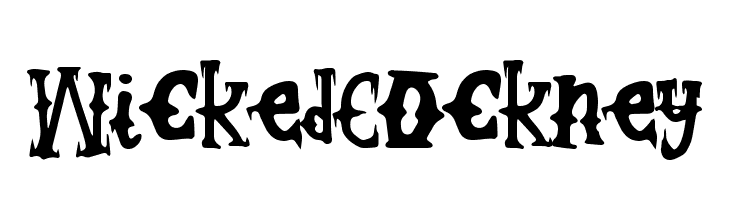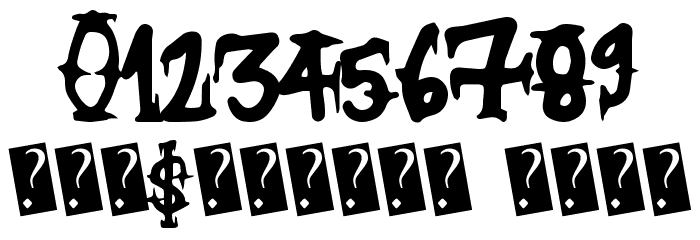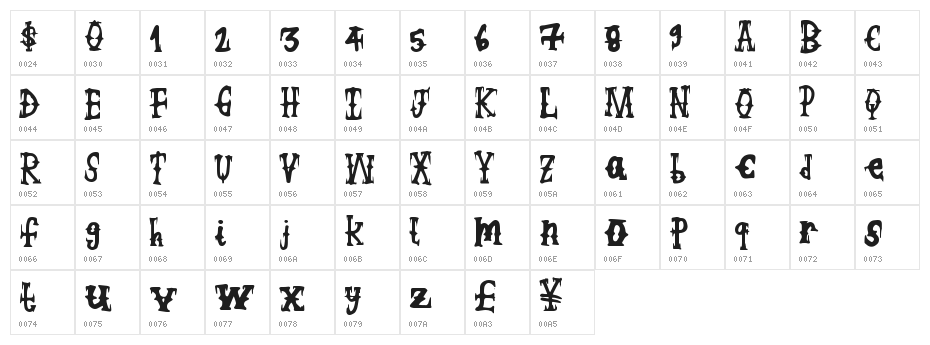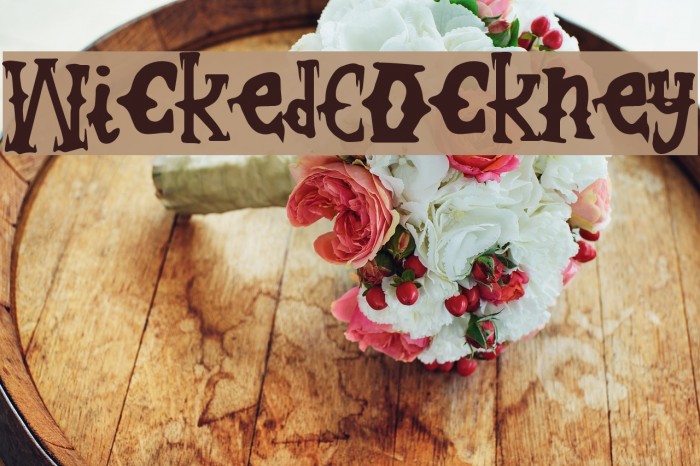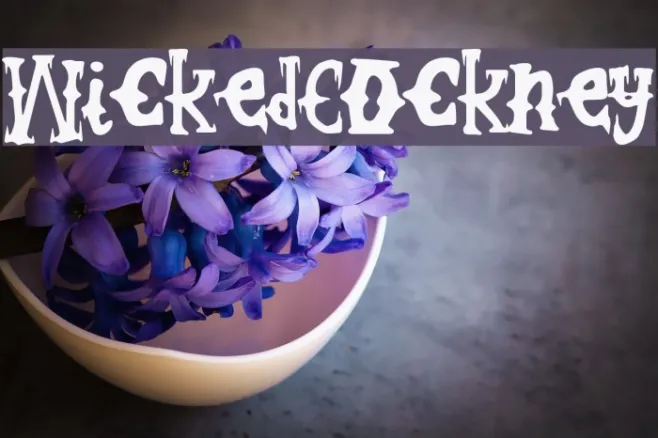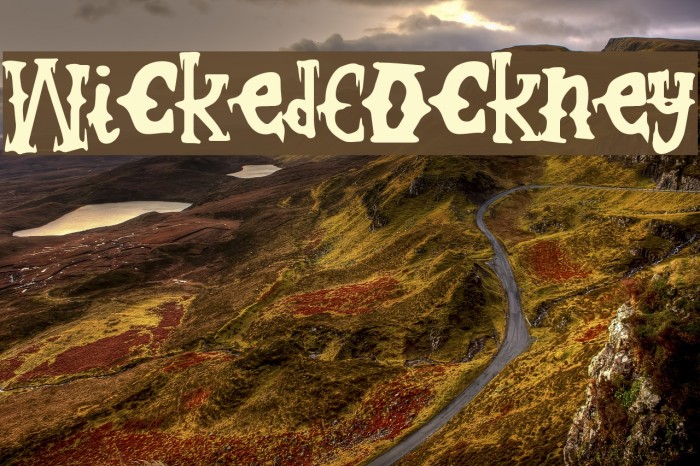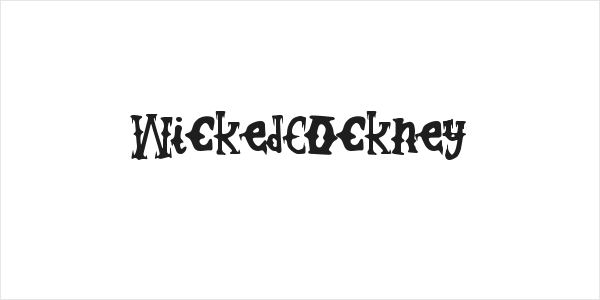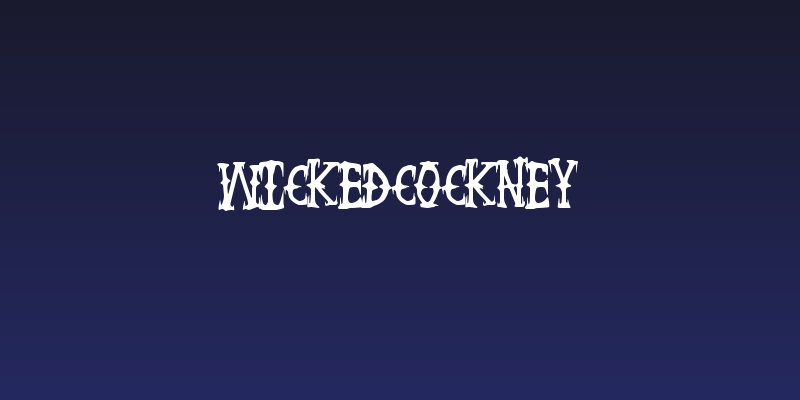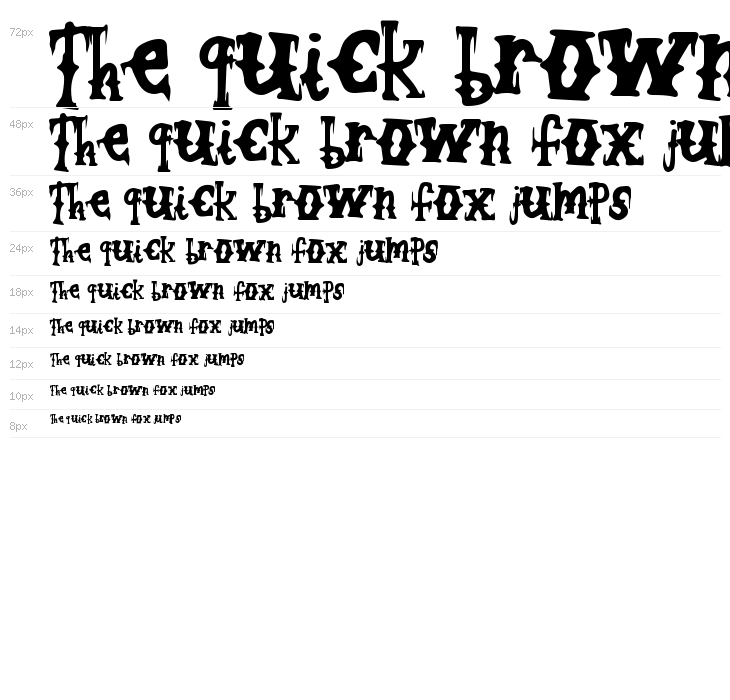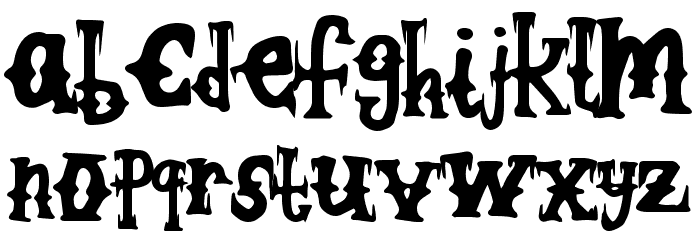
WickedCockney Font
WickedCockney Description
This font exudes a bold and edgy personality, characterized by its jagged and irregular strokes that give it a rebellious and unconventional appearance. The uppercase and lowercase letters share a consistent style, with sharp angles and uneven edges that create a sense of movement and energy. The numbers and special characters maintain this dynamic aesthetic, making the font suitable for projects that require a strong visual impact. The overall design is reminiscent of graffiti or street art, with a touch of gothic influence, making it ideal for creative and daring applications.
| Overall Style | Edgy, Gothic, Street Art |
| Proposed Projects | Album covers, posters, streetwear branding, event flyers, and video game titles. |